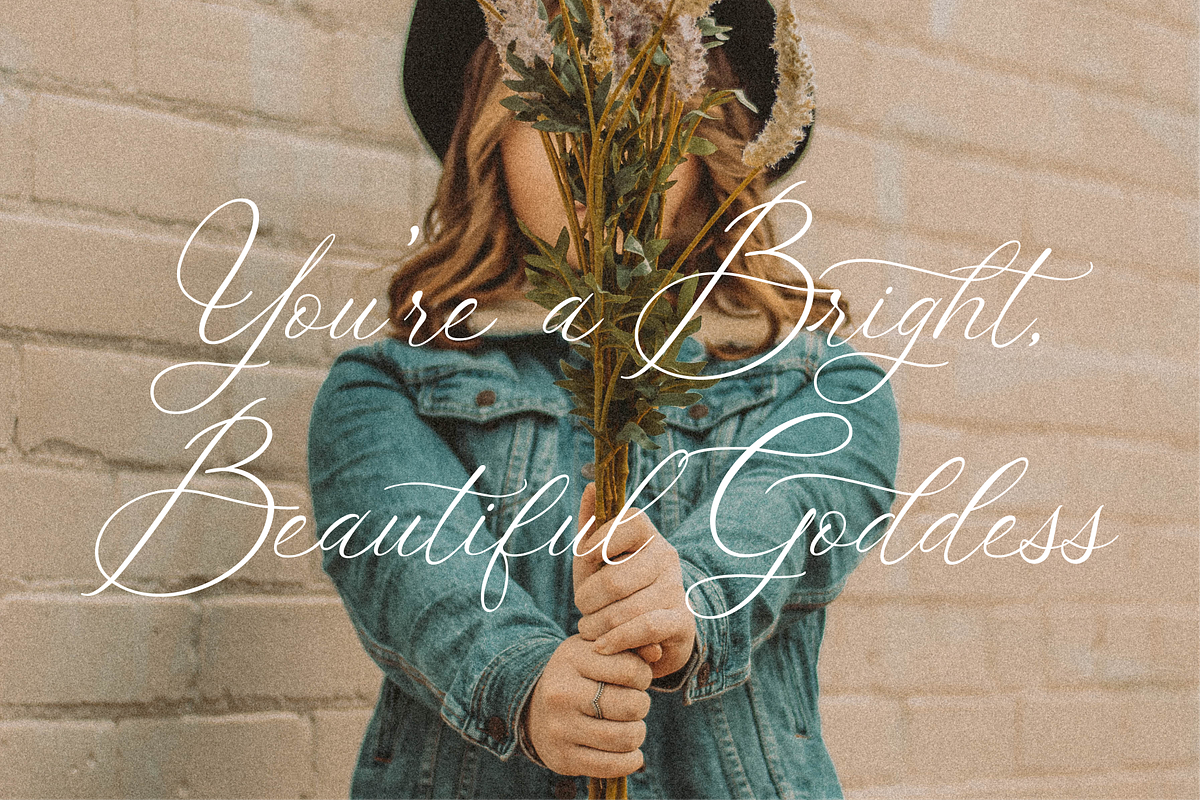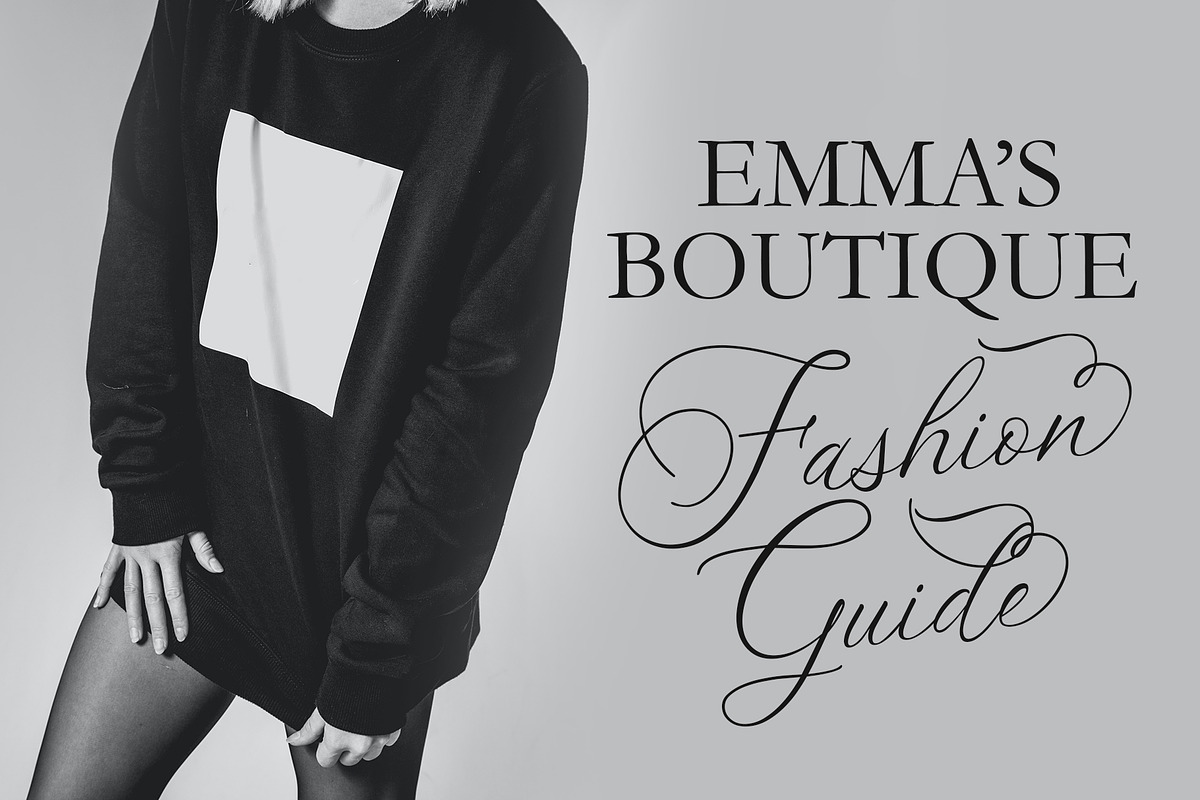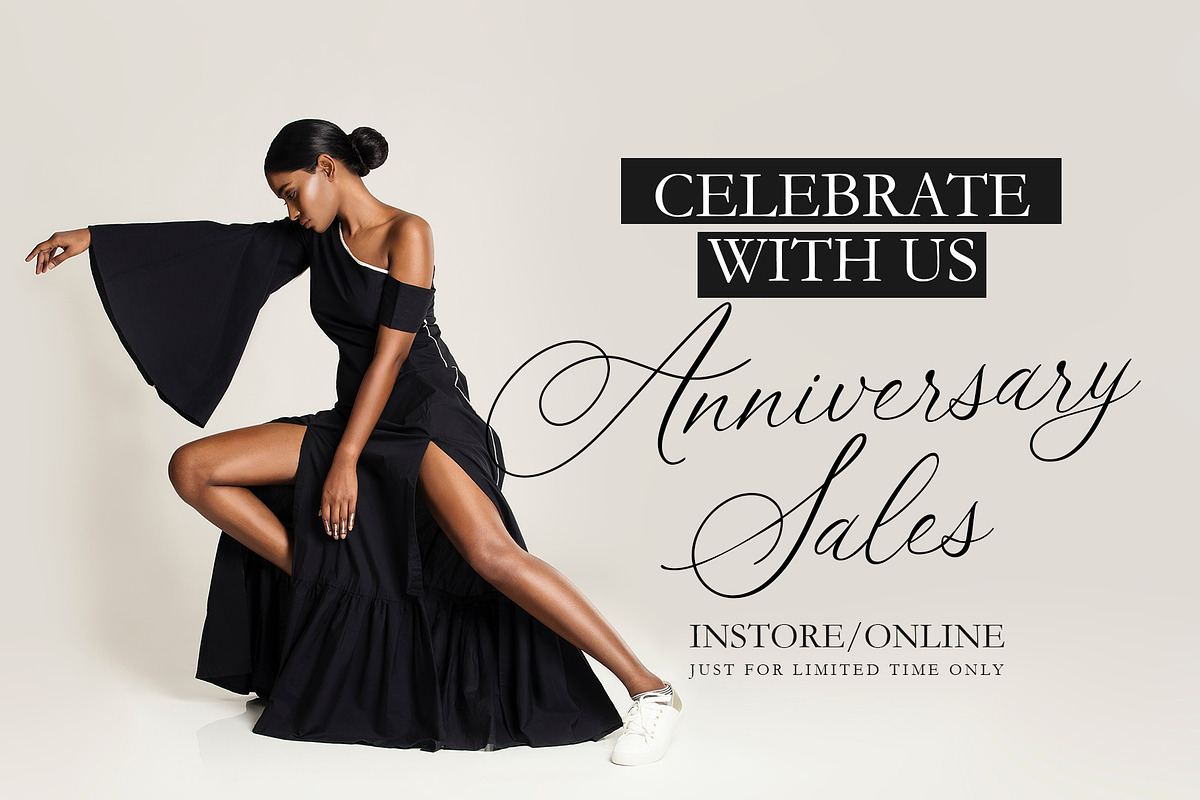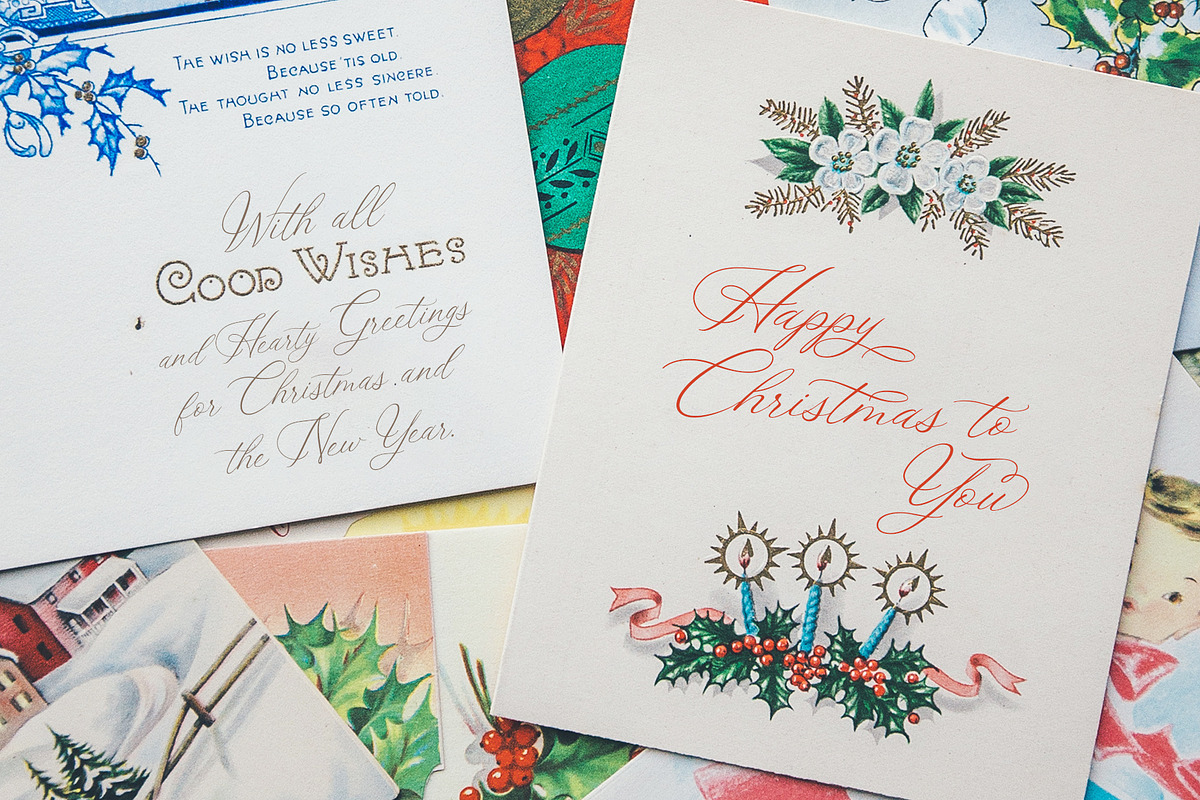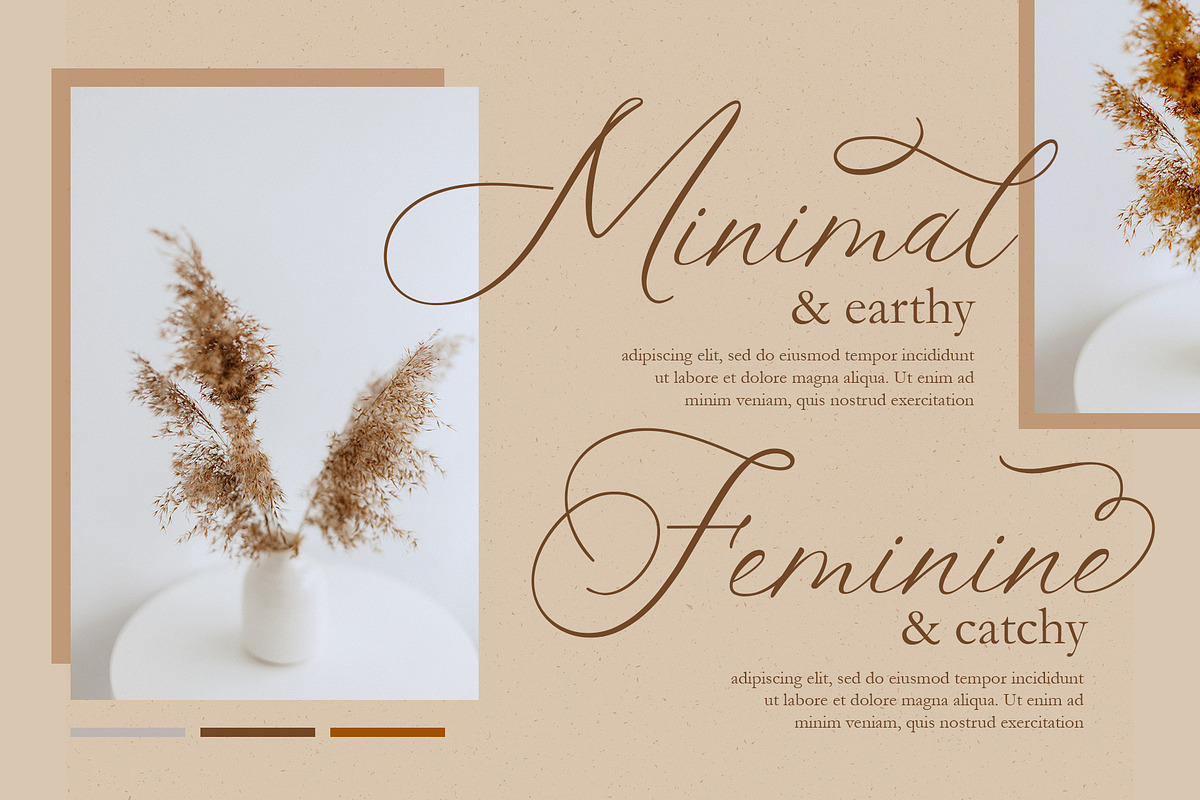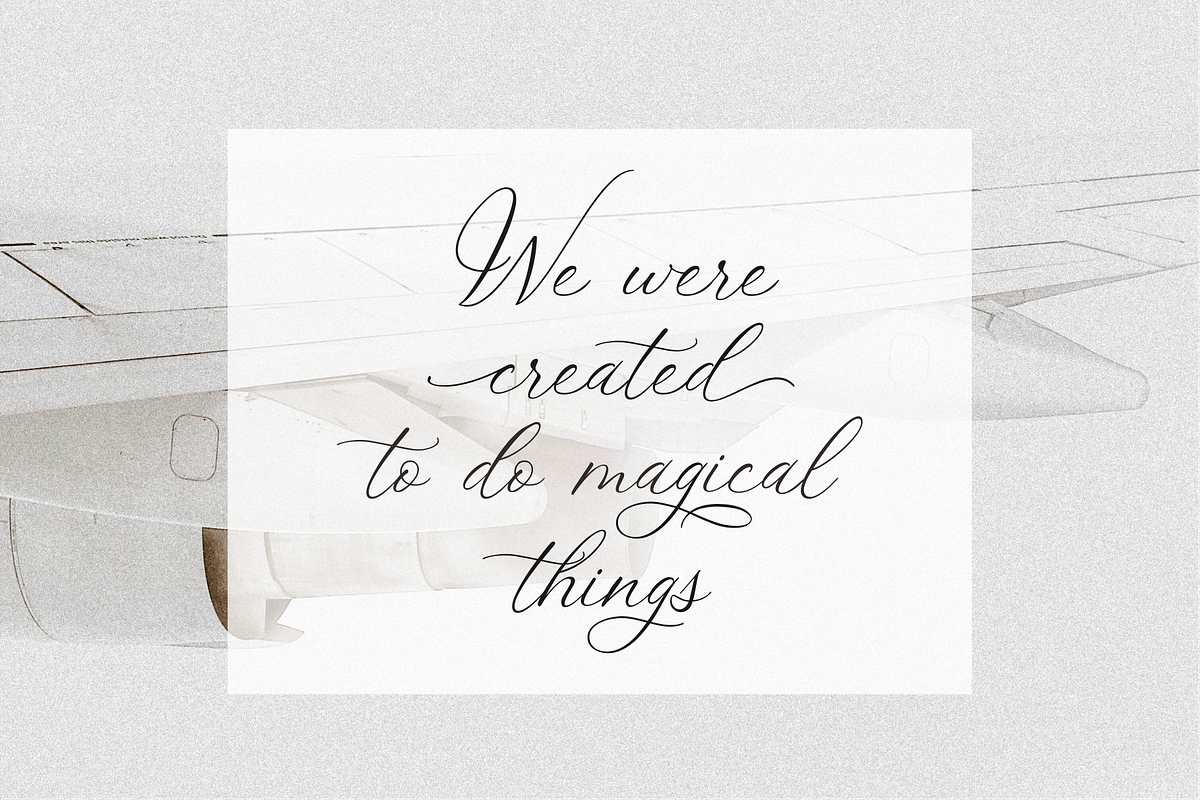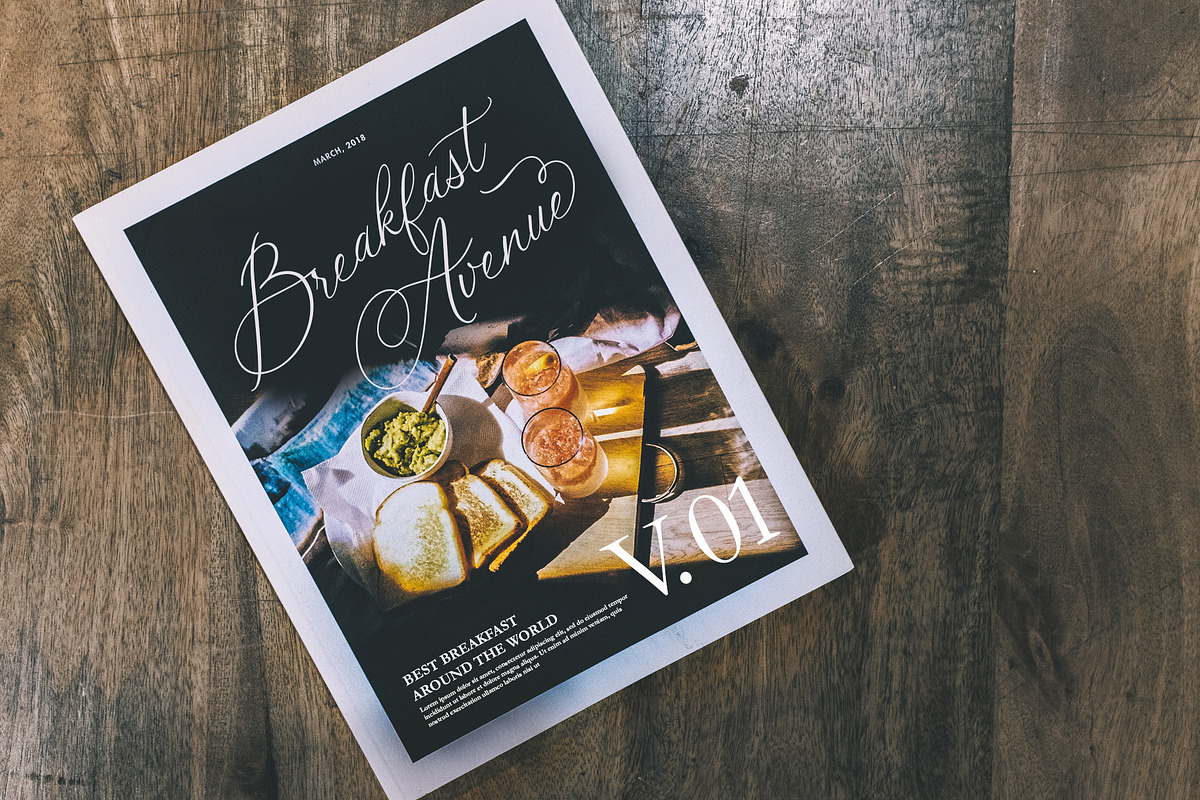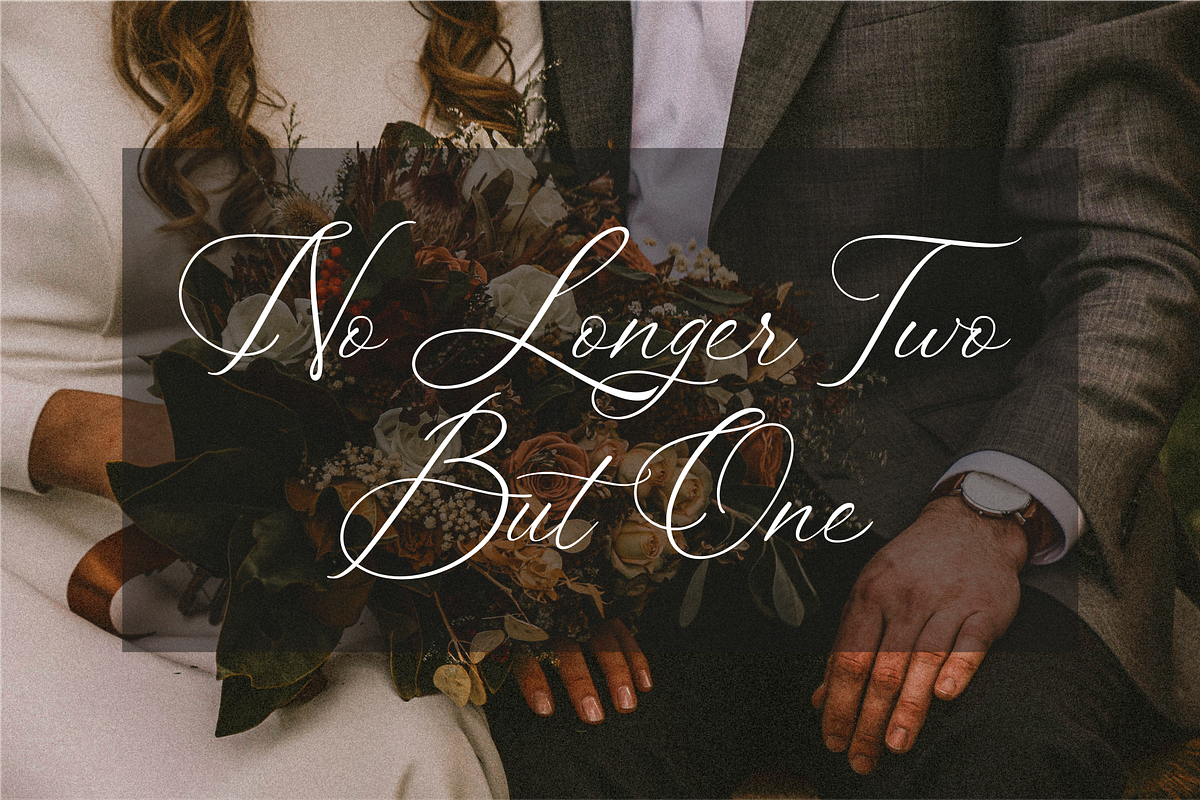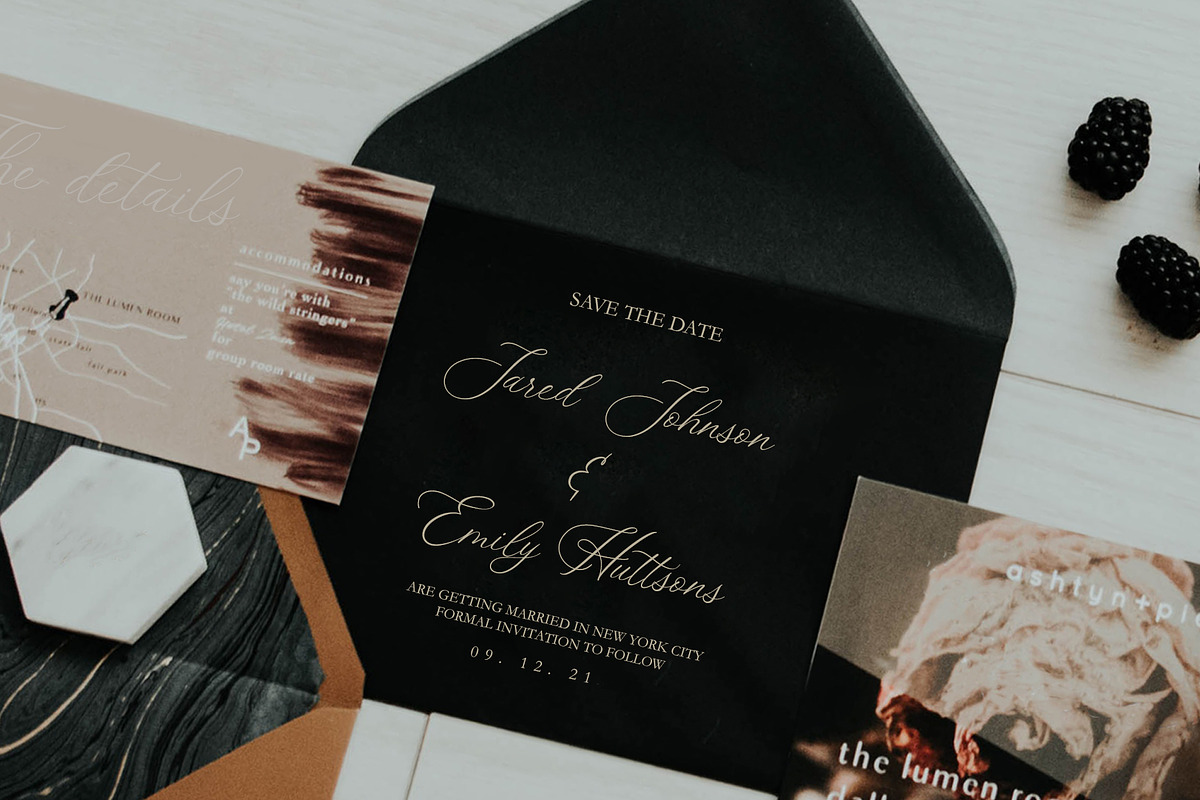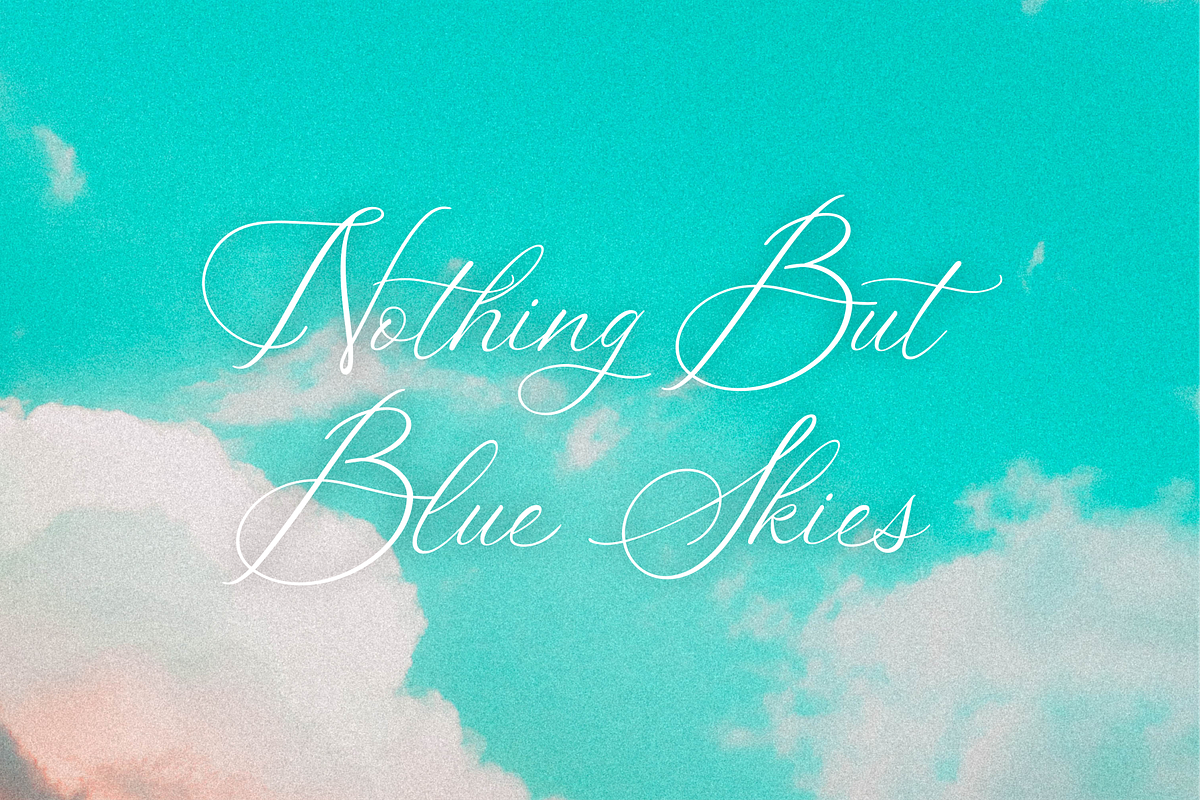
White Cotton - Wedding Fonts
White Cotton is a modern calligraphy script font with elegant and stylish calligraphic handwriting for any wedding projects, logos, watermarks, headers, quotes, labels and anything you wish!
White Cotton is perfect for branding projects, logo, wedding designs, social media posts, advertisements, product packaging, product designs, label, photography, watermark, invitation, stationery and any projects that need handwriting taste.